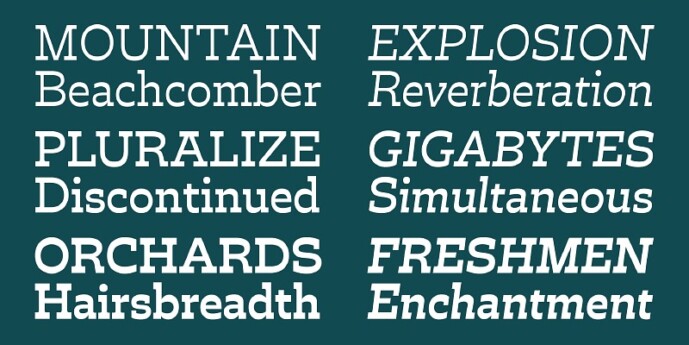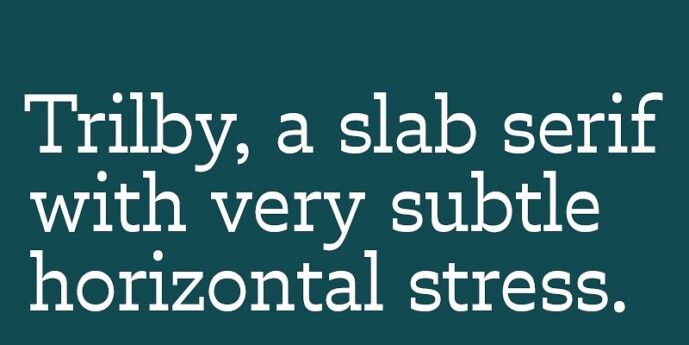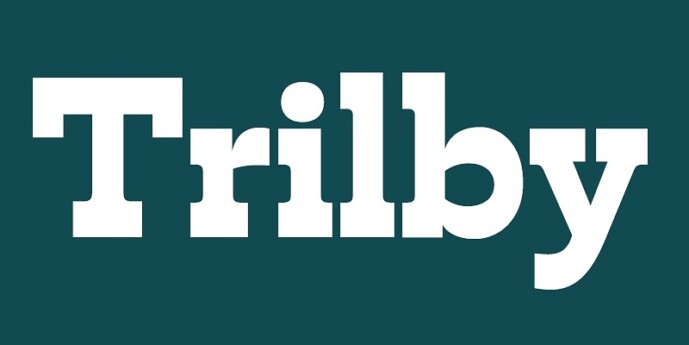
Trilby Font Family
Designer: David Jonathan Ross
Trilby Font Family:  The 19th-century French typeface Clarendon, with its unorthodox reverse contrast, could never match the versatility of its Victorian siblings: the triangular-serif Antique and the sans-serif Grotesque. In Trilby, David Jonathan Ross put a stop to this messy style, cultivating its formal side. Without excess ornament, Trilby transcends mere novelty into a useful contemporary design with quirky charm and subtle wit.